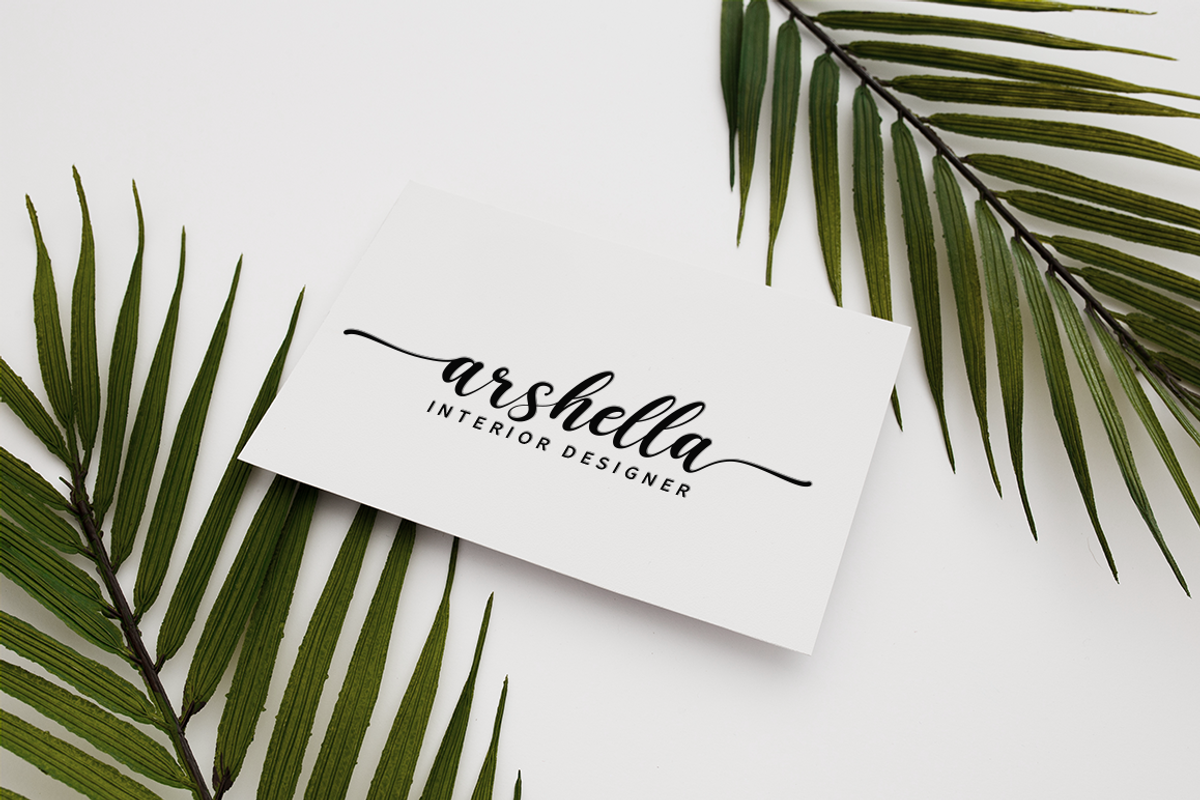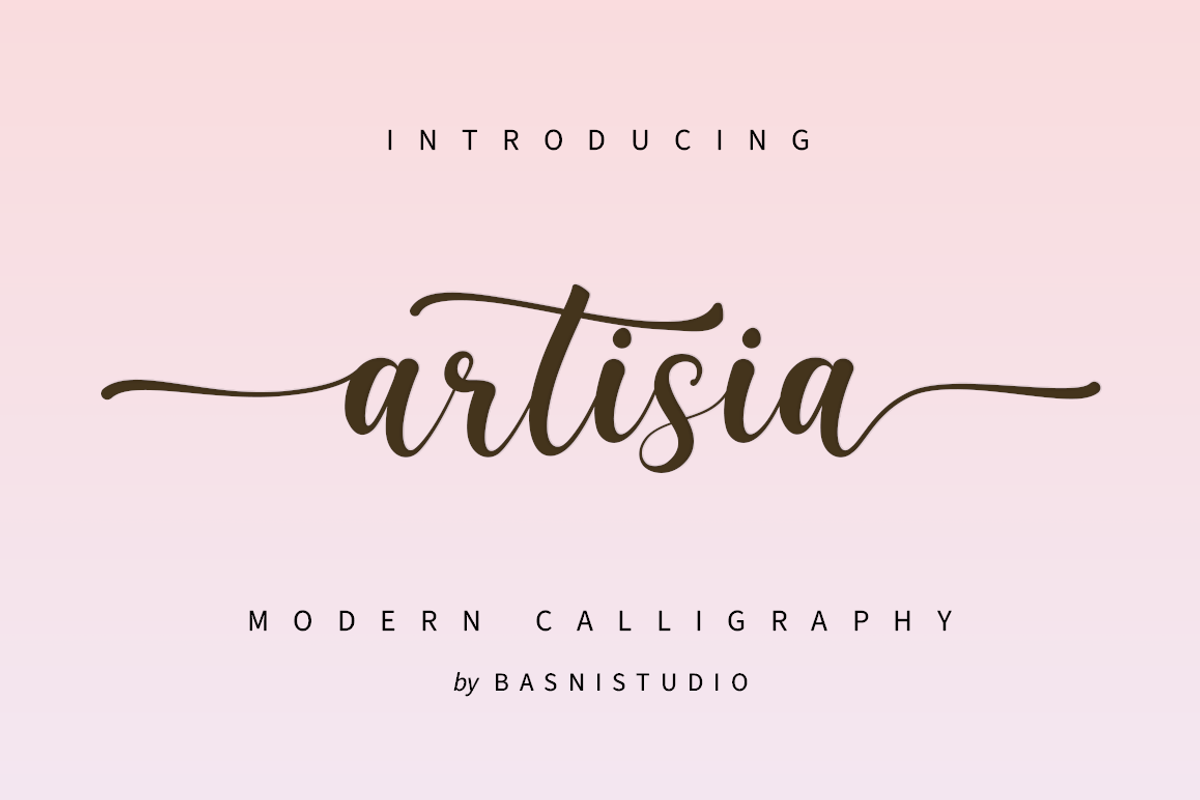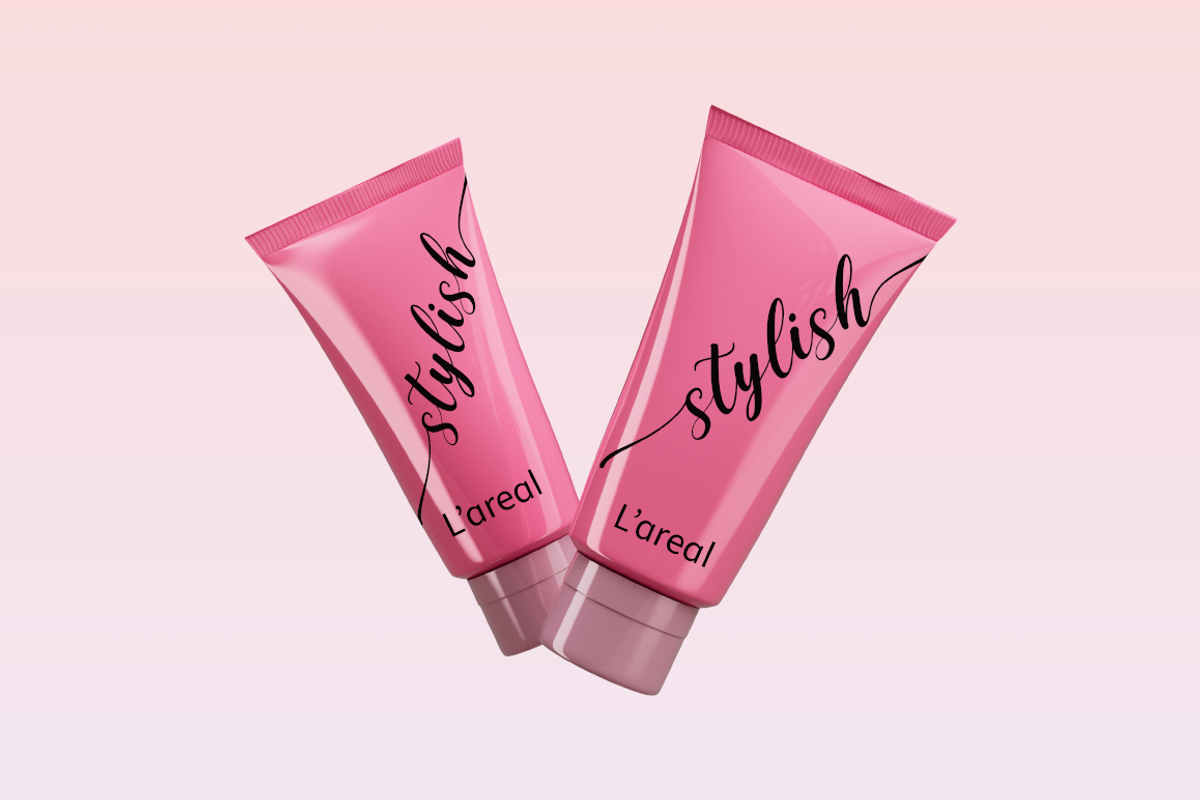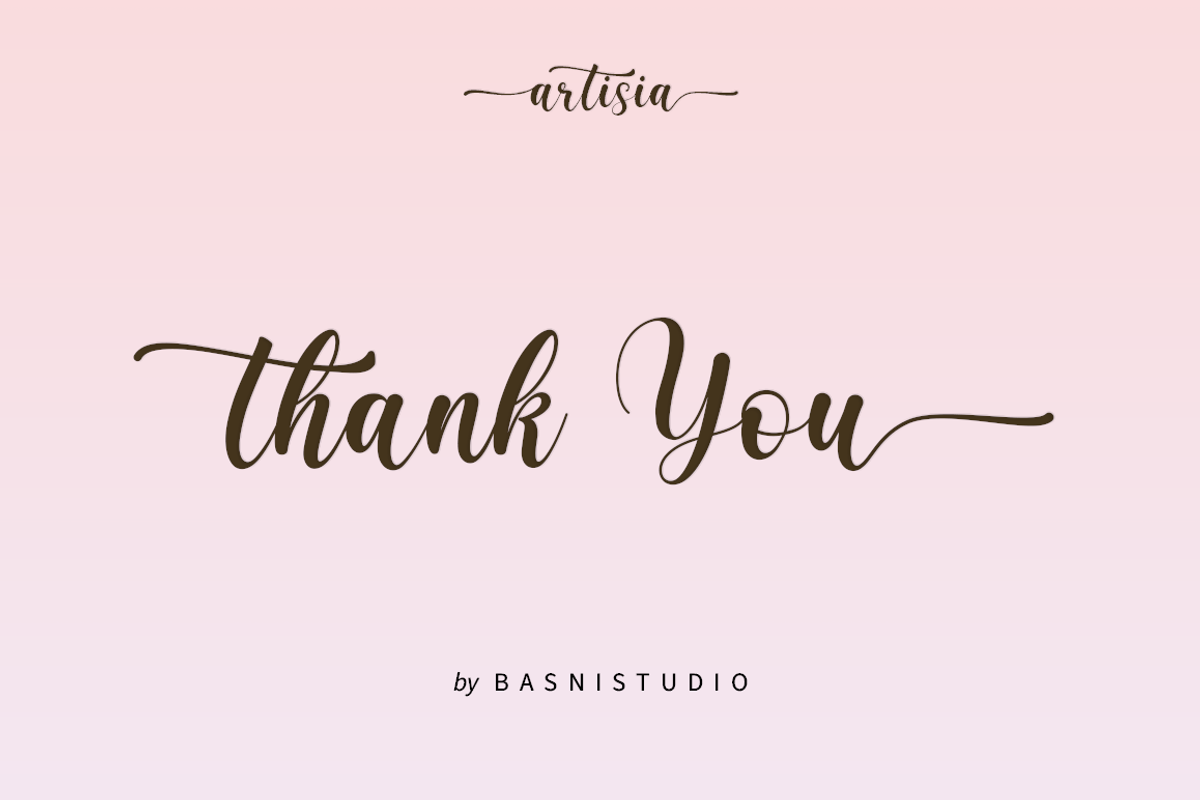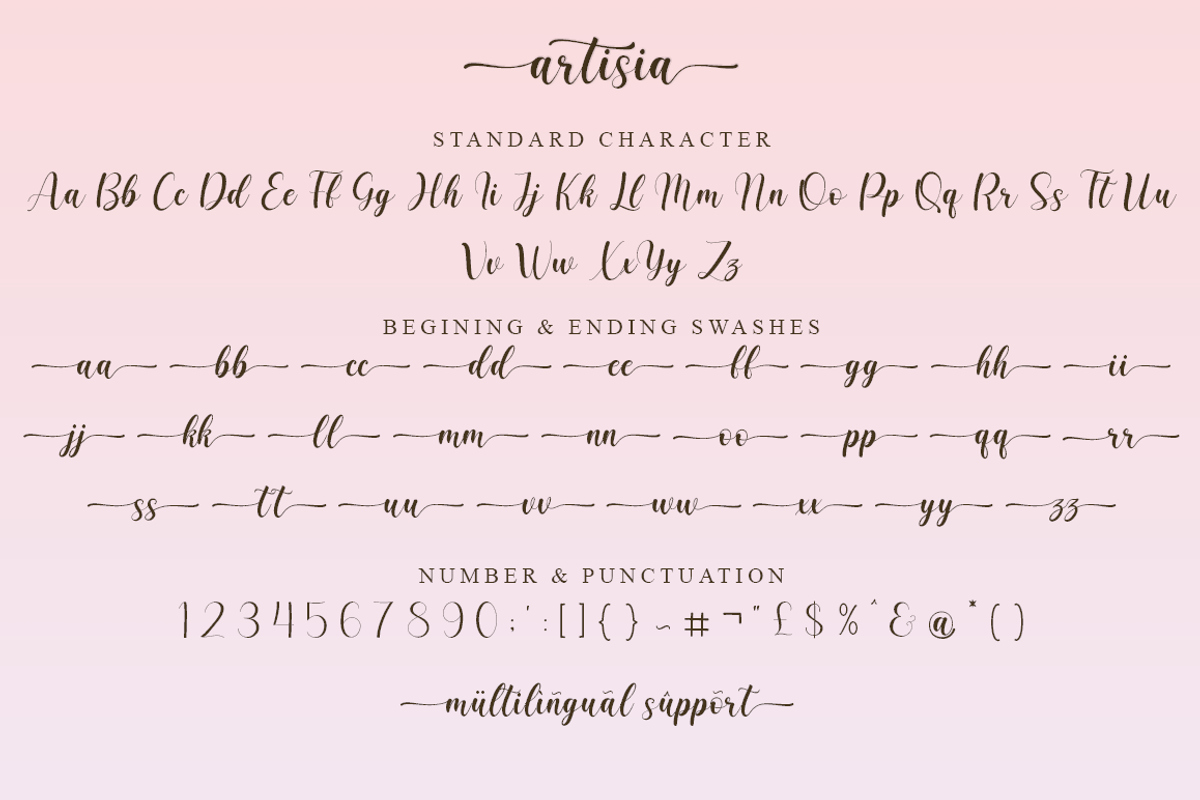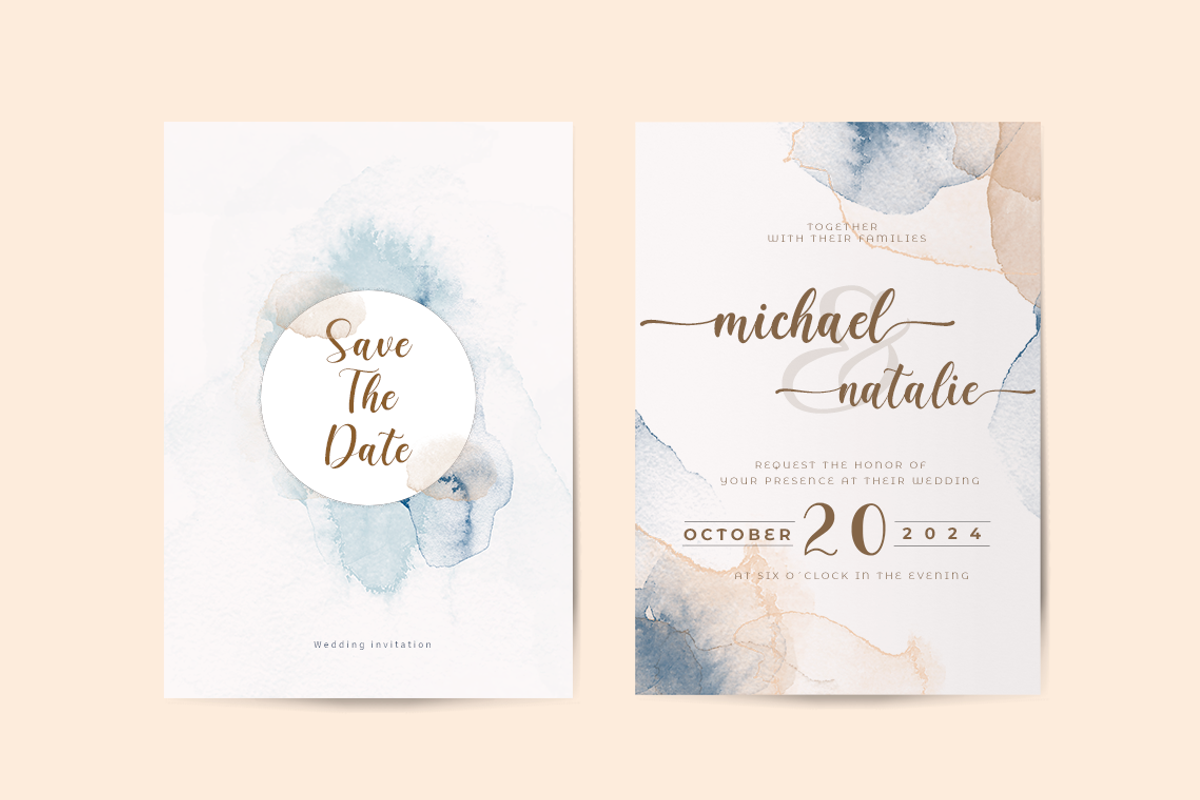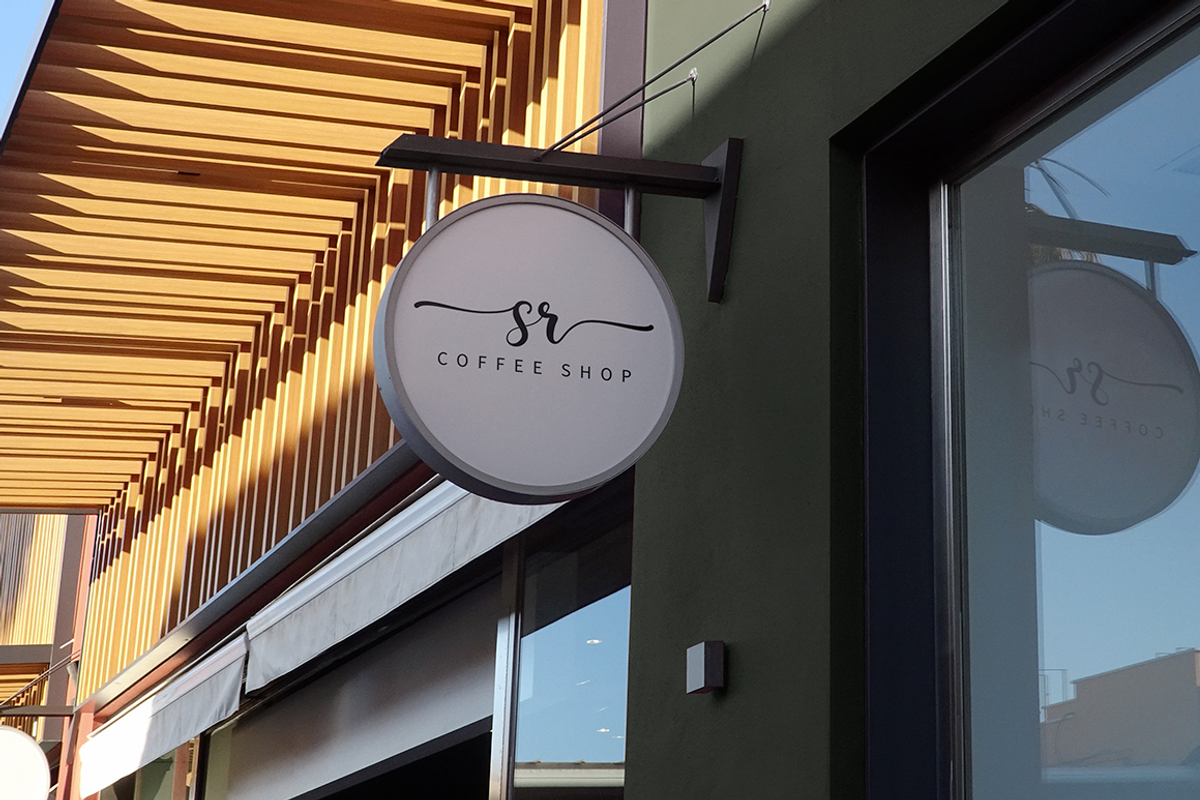
Artisia a Modern Calligraphy Font
Introducing Artisia a Modern Calligraphy Font
Artisia a Modern Calligraphy Font, made with Love, Precision and Stylish, perfect for branding, websites, and editorial designs. Includes all Character letters, multilingual support, punctuation, binding. everything can be easily accessed using software that supports OpenType. What’s include: